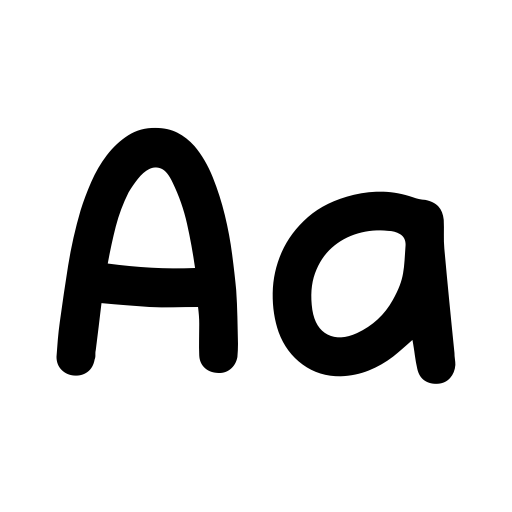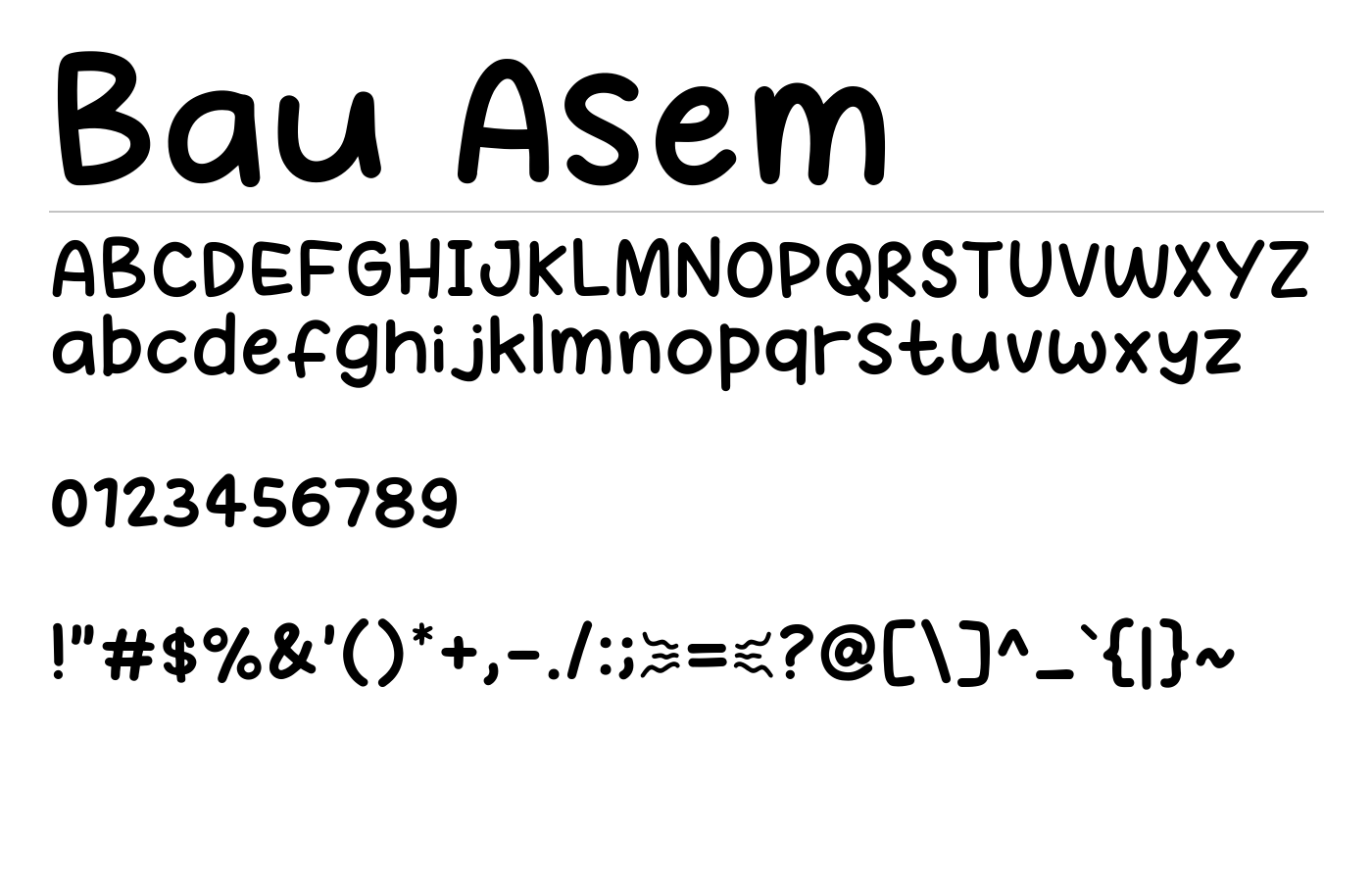
Bau Asem is a playful, rounded sans serif font with a casual, hand-drawn feel that makes it friendly and approachable. Its uniform stroke weight and upright letterforms give it clarity and simplicity, ideal for informal designs like children's books, creative branding, and fun posters. This font works well when you want to add a cheerful, lighthearted tone without sacrificing readability.
Bau Asem Font
About Bau Asem Font
| Font family | Bau Asem Font |